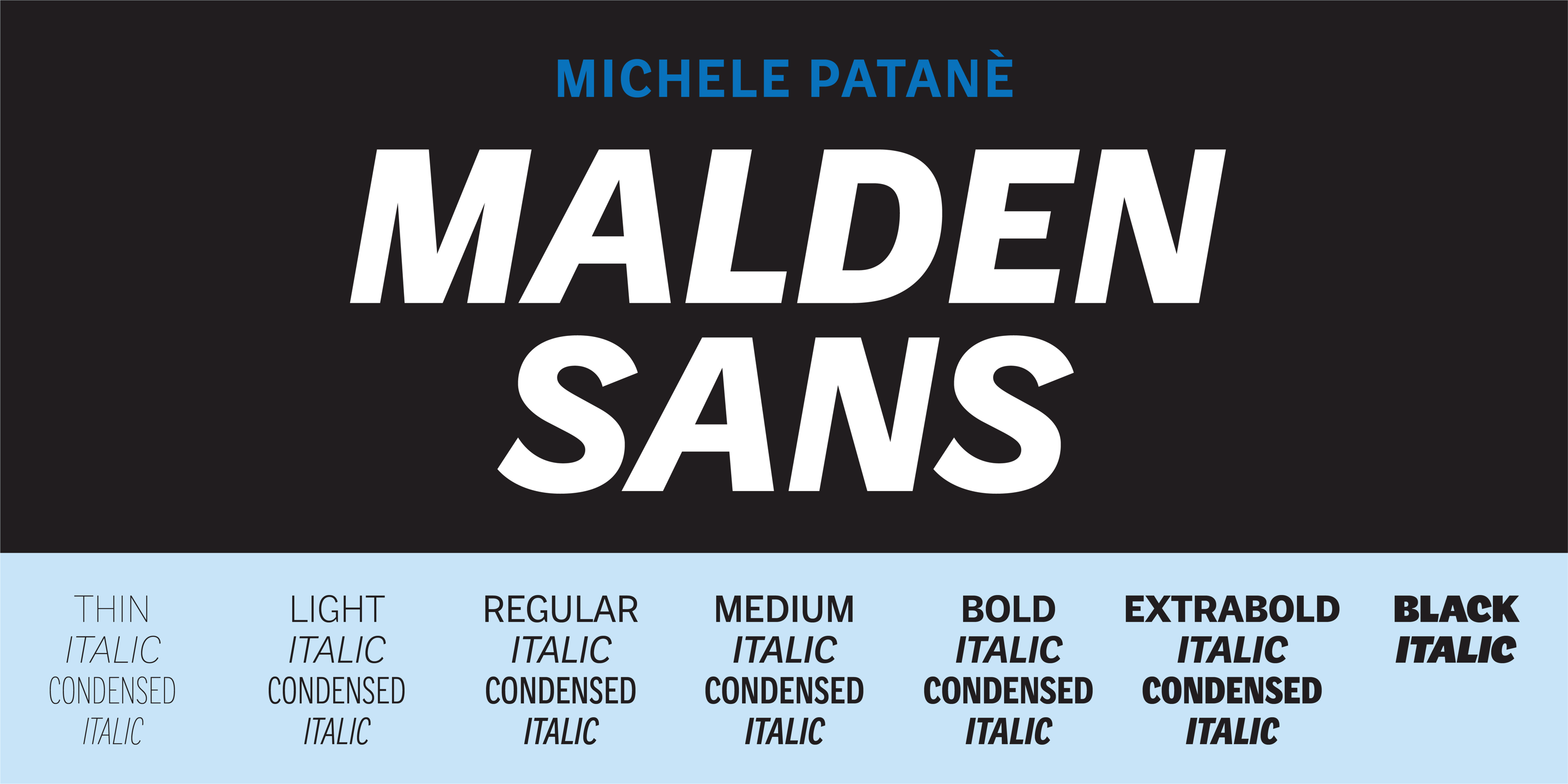
Malden Sans Font is perfect for corporate websites, business presentations, mobile app interfaces, annual reports, technical documentation, startup branding, financial services materials, healthcare communications, educational platforms, and professional marketing collateral. This versatile typeface excels in environments where clarity, professionalism, and modern aesthetics are essential.
What makes Malden Sans Font exciting is its exceptional balance between geometric precision and humanist warmth. The font features carefully crafted letterforms that maintain outstanding legibility at all sizes while conveying approachability and trustworthiness. This unique combination makes it ideal for brands seeking to establish credibility while remaining accessible to diverse audiences across multiple platforms.
Malden Sans Font family includes Thin, Light, Regular, Medium, Semibold, Bold, Black, and corresponding Italic variants. Each weight maintains the font's distinctive character while offering designers complete flexibility for creating sophisticated typographic hierarchies and comprehensive brand identity systems.
The Malden Sans Font Free Download offers access to a premium sans-serif typeface that meets the demanding requirements of contemporary digital and print communications. This font's optimized metrics and extensive character set make it particularly valuable for international businesses, tech companies, and organizations requiring multilingual support.
Professional designers appreciate the font's technical excellence, including refined kerning pairs, comprehensive OpenType features, and extensive language support covering Latin, Cyrillic, and Greek scripts. The character set includes specialized symbols, fractions, and currency signs essential for business applications.
When implementing Malden Sans Font in design projects, the results consistently demonstrate both functionality and aesthetic appeal. The font's neutral yet distinctive personality makes it particularly effective for brands in technology, finance, consulting, and professional services where trust and competence are paramount.
For web typography, Malden Sans Font renders exceptionally well across all devices and browsers, maintaining its clarity and character integrity from mobile screens to desktop displays. Its optimized hinting ensures consistent performance across different operating systems.
Creative agencies frequently recommend Malden Sans Font for clients seeking a reliable, professional typeface that communicates expertise and innovation while remaining highly functional across diverse media applications.